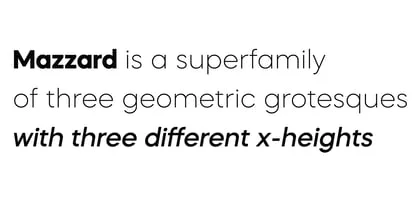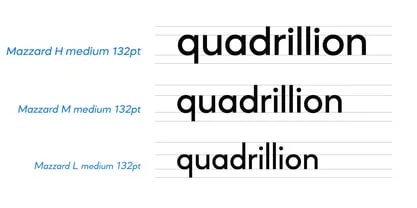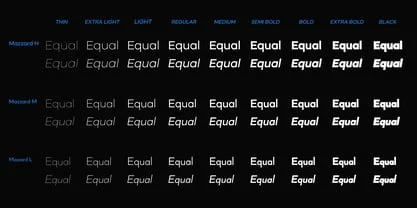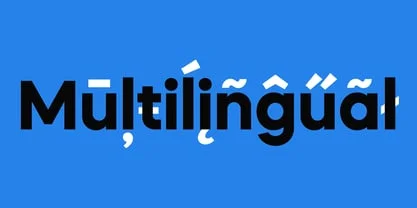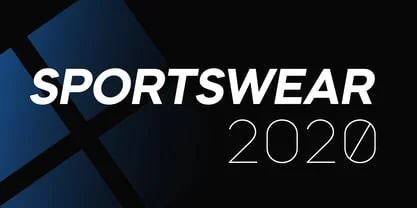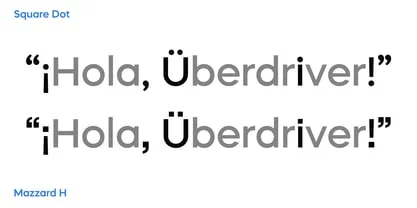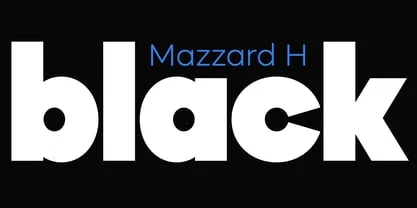
Mazzard Font
Mazzard Font is perfect for contemporary corporate branding, modern web interfaces, clean marketing materials, professional presentations, sleek app design, minimalist packaging, tech company logos, sophisticated business communications, elegant editorial layouts, and cutting-edge digital platforms.
What makes Mazzard Font so exciting is its perfect balance of geometric precision and humanist warmth that creates exceptional versatility and timeless appeal across all design applications. This outstanding sans-serif typeface embodies contemporary design excellence and functional sophistication, delivering typography that communicates with clarity, professionalism, and modern elegance.
The Mazzard Font family includes thin, light, regular, medium, bold, and black weights, complete with matching italics and extended character variations, providing designers with a comprehensive typographic system that addresses every design challenge from delicate text to powerful display applications.
Experience contemporary perfection with Mazzard Font, a meticulously crafted sans-serif typeface that defines excellence in modern typography design. This exceptional font represents the evolution of contemporary typefaces, offering designers a versatile tool that combines functional clarity with aesthetic sophistication for superior visual communication across all platforms.
The expertly engineered letterforms of Mazzard Font showcase contemporary elegance with professional character that creates instant recognition of quality and modern sophistication. Each character displays careful attention to maintaining the perfect balance between geometric precision and humanist warmth while ensuring superior readability and professional versatility. The font's optimized proportions and contemporary spacing contribute to its modern appearance and universal functionality.
Leading brands and design professionals worldwide trust Mazzard Font for projects requiring contemporary sophistication and reliable performance. The comprehensive character set includes Latin extended glyphs, OpenType features, mathematical symbols, currency signs, and professional characters that provide complete support for international projects and complex typographic requirements.
The universal excellence of Mazzard Font ensures outstanding results across all platforms and design applications. Whether developing modern brand identities, creating responsive web interfaces, or designing sophisticated marketing campaigns, this remarkable typeface delivers the reliability and visual impact that contemporary brands require to communicate effectively with global audiences.
Transform your design projects with Mazzard Font. This outstanding contemporary typeface brings modern sophistication and functional excellence to typography, making it the essential choice for designers who create experiences that define contemporary design standards and professional communication excellence in today's competitive marketplace.